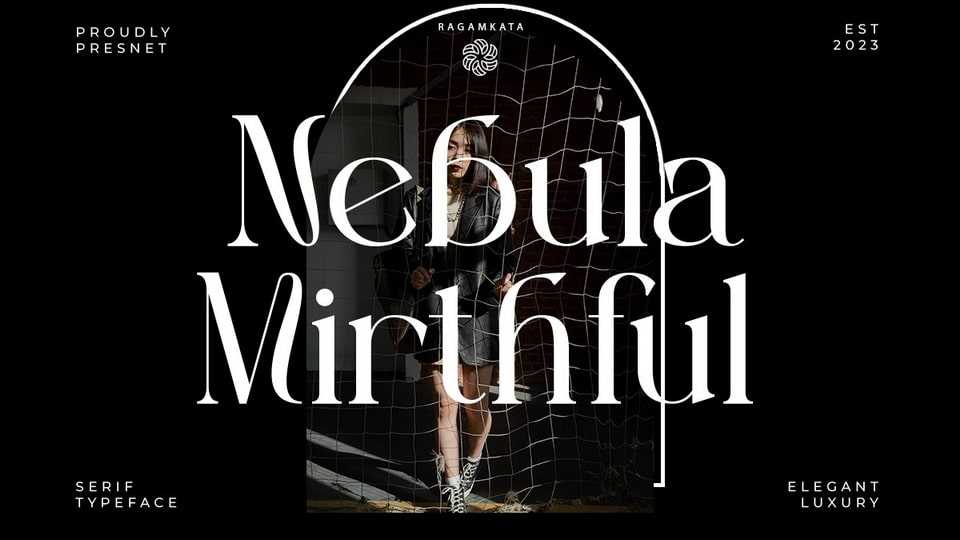
Download Nebula Mirthful font, a typeface exuding femininity and beauty, combines the delicate strokes of serif typography with the elegant touch of ligatures.